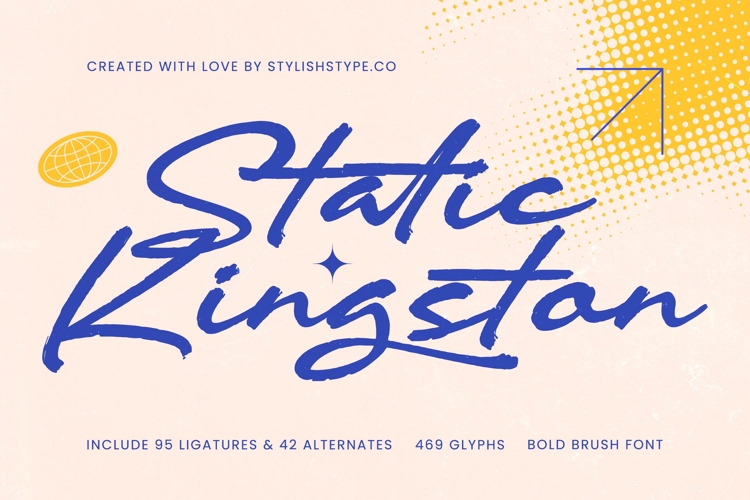
Static Kingston - Bold Brush Font
Static Kingston - Bold Brush Font lies in its comprehensive OpenType features. Equipped with an impressive 95 unique ligatures and 42 alternates, this font allows designers to create genuinely customized, seamless connections between characters, effectively eliminating the repetitive look often associated with digital scripts. This extensive library ensures a natural, high-quality finish that elevates production value instantly.